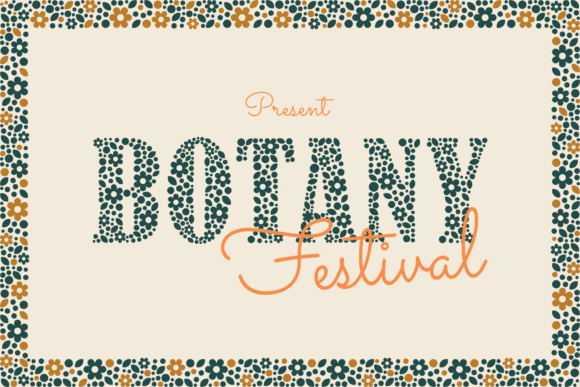
Botany Festival Font: A Nature-Inspired Serif Font for Your Creative Projects
The Botany Festival Font is a unique serif font that draws inspiration from the beauty of nature. With its elegant serifs and organic details, this font is perfect for projects related to nature, botany, or festivals celebrating the natural world. In this article, we’ll explore the features and benefits of the Botany Festival Font and how it can elevate your creative projects.
What is Botany Festival Font?
The Botany Festival Font is a serif font that combines traditional typography with natural elements. The font is designed to resemble the intricate details of leaves and flowers, giving it an organic and artistic feel. The elegant serifs and curved lines create a sense of movement and fluidity, making it perfect for titles, headings, and body text.
Key Features of Botany Festival Font
- Unique Serif Design: The Botany Festival Font features a distinctive serif design that sets it apart from traditional serif fonts. The serifs are shaped like leaves and flowers, adding a touch of natural elegance to your text.
- Organic Details: The font includes intricate organic details that give it a natural, hand-crafted feel. The details are carefully designed to resemble the texture and patterns found in nature.
- Elegant and Artistic: The Botany Festival Font has an elegant and artistic appearance that makes it perfect for creative projects. The font is designed to evoke a sense of wonder and curiosity, making it ideal for titles, headings, and body text.
- Multilingual Support: The Botany Festival Font supports multiple languages, making it a versatile choice for global projects.
Benefits of Using Botany Festival Font
The Botany Festival Font offers several benefits for creative professionals and businesses. Some of the benefits include:
- Unique Visual Identity: The Botany Festival Font helps you create a unique visual identity for your brand or project. The font’s distinctive design sets it apart from traditional fonts and makes it more memorable.
- Nature-Inspired Aesthetic: The font’s natural aesthetic makes it perfect for projects related to nature, botany, or festivals celebrating the natural world.
- Elegant and Sophisticated: The Botany Festival Font has an elegant and sophisticated appearance that makes it suitable for high-end brands and projects.
- Easy to Read: Despite its unique design, the Botany Festival Font is easy to read and understand, making it perfect for body text and captions.
Use Cases for Botany Festival Font
The Botany Festival Font is versatile and can be used in various creative projects, including:
- Branding and Logo Design: The font’s unique design makes it perfect for branding and logo design, especially for businesses related to nature, botany, or outdoor activities.
- Festival and Event Marketing: The Botany Festival Font is ideal for promoting festivals and events celebrating nature, botany, or the outdoors.
- Packaging Design: The font’s natural aesthetic makes it suitable for packaging design, especially for products related to nature, health, and wellness.
- Web Design: The Botany Festival Font can be used in web design to create a unique and memorable online presence.
How to Use Botany Festival Font
Using the Botany Festival Font is easy. Here are some tips to get you started:
- Choose the Right Size: Choose a font size that suits your project. The Botany Festival Font is designed to be legible at various sizes, but it’s best to use it at larger sizes for headings and titles.
- Pair with Other Fonts: The Botany Festival Font can be paired with other fonts to create a unique and harmonious typography. Choose fonts that complement its natural aesthetic.
- Experiment with Colors: The Botany Festival Font looks great in various colors, especially earthy tones like green, brown, and beige. Experiment with different colors to find the perfect combination for your project.
The Botany Festival Font is a unique and elegant serif font that draws inspiration from nature’s beauty. With its organic details and natural aesthetic, this font is perfect for projects related to nature, botany, or festivals celebrating the natural world. Whether you’re a creative professional or a business owner, the Botany Festival Font can help you create a memorable and artistic visual identity.